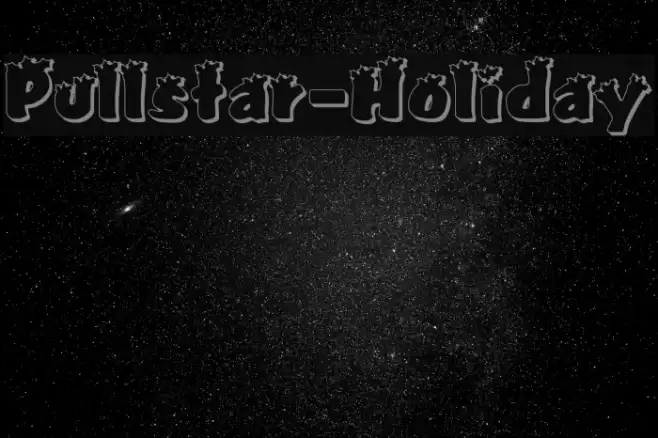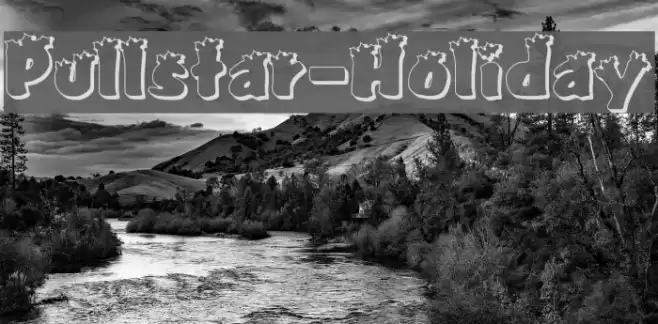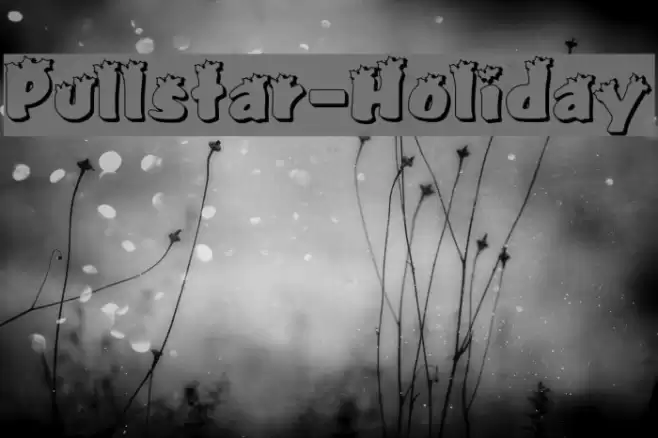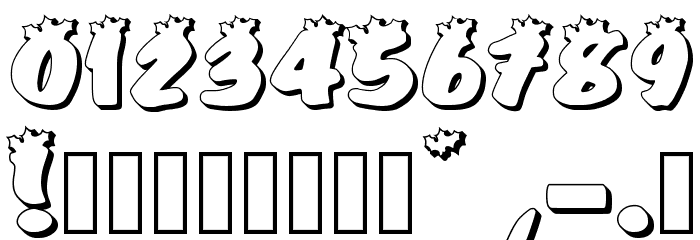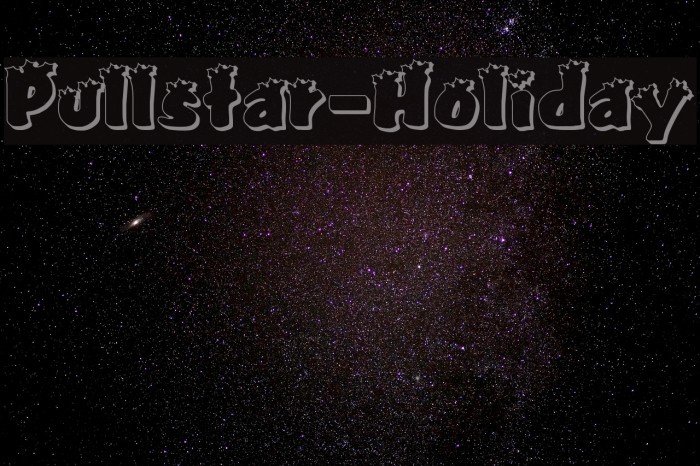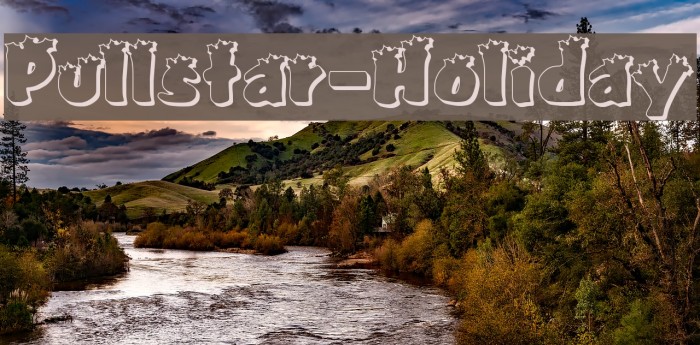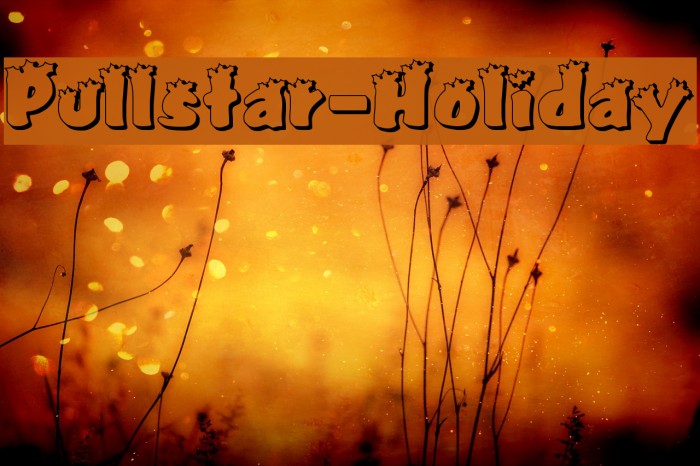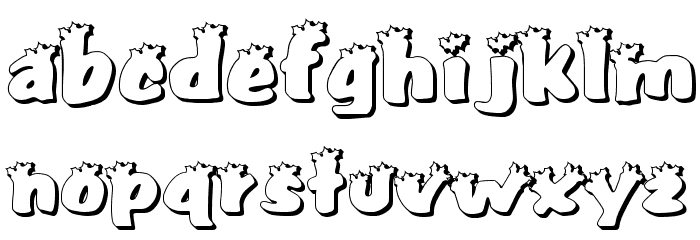
Pullstar-Holiday Font
Pullstar-Holiday Description
This playful and festive font features bold, chunky letters adorned with decorative elements reminiscent of holiday themes. Each character is uniquely styled with a whimsical flair, making it perfect for capturing the spirit of celebration and joy. The uppercase and lowercase letters maintain a consistent, lively appearance, while the numbers and special characters are equally engaging. The font's design is characterized by its thick strokes and playful embellishments, creating a sense of movement and excitement. Ideal for projects that require a touch of fun and festivity, this font is sure to stand out.
- Proposed Projects: Ideal for holiday cards, festive banners, children's party invitations, and playful branding.